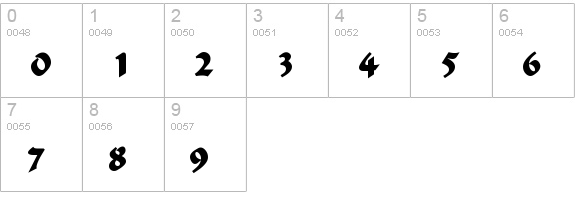
Flat Brush Bold is a strong, high-contrast variant in the Flat typeface family \xE2\x80\x94 well suited to headlines, attention-grabbing titles, and strong calls-to-action.
The Flat Brush Bold font is a stylish and modern typeface that exudes confidence and creativity. Its thick, bold strokes give it a strong presence, making it perfect for headlines, titles, and other attention-grabbing text. With a flat brush style that adds a touch of handcrafted charm, this font is versatile and can be used for a variety of design projects. Best of all, the Flat Brush Bold font is completely free to download at FontsMarket.com. So whether you're working on a poster, logo, website, or any other design project, you can easily add this eye-catching font to your collection without breaking the bank. Don't miss out on the opportunity to enhance your designs with the dynamic and bold Flat Brush Bold font today!